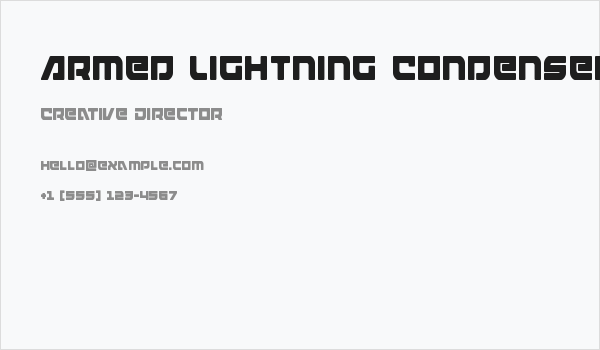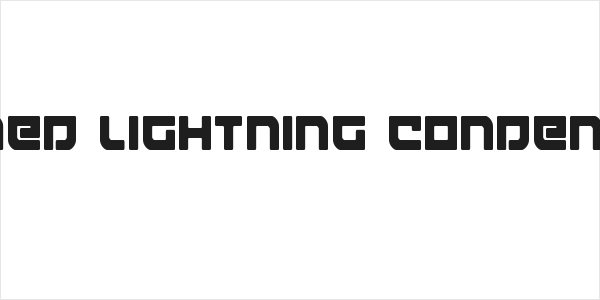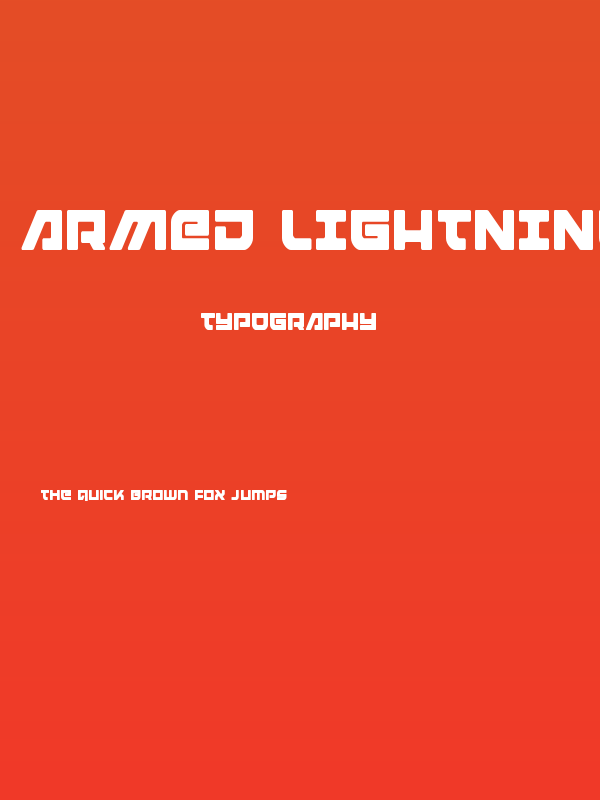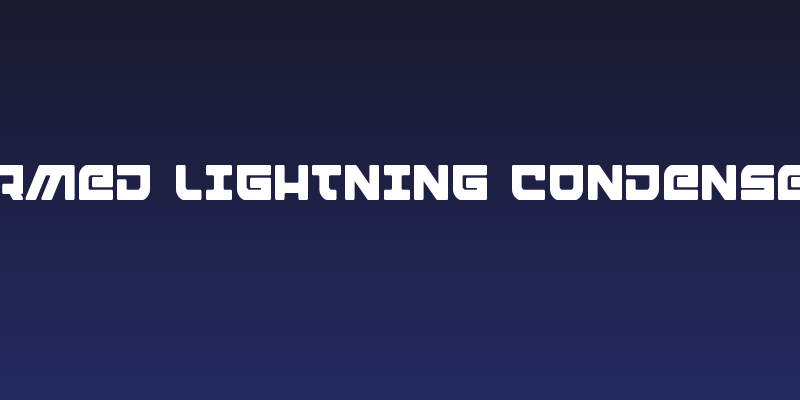
Armed Lightning Condensed Font
Armed Lightning Condensed Description
This font features a bold, geometric design with a futuristic and industrial feel. Its characters are blocky and angular, with a consistent stroke width that gives it a strong presence. The condensed nature of the font allows for efficient use of space, making it ideal for headlines or impactful text. The uppercase and lowercase letters maintain a uniform style, while the numerals and special characters are designed to match the overall aesthetic. This font's unique style makes it stand out, offering a modern and edgy look.
| Proposed Projects | Ideal for sci-fi themed projects, tech branding, posters, and video game titles. |